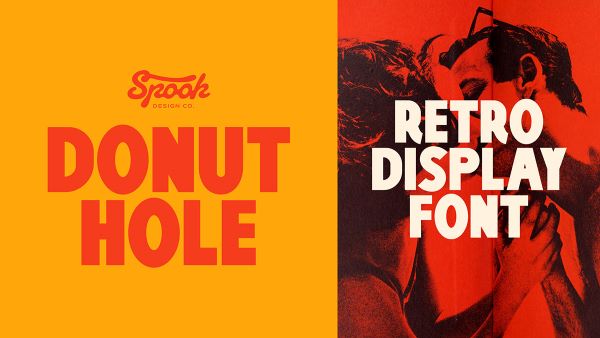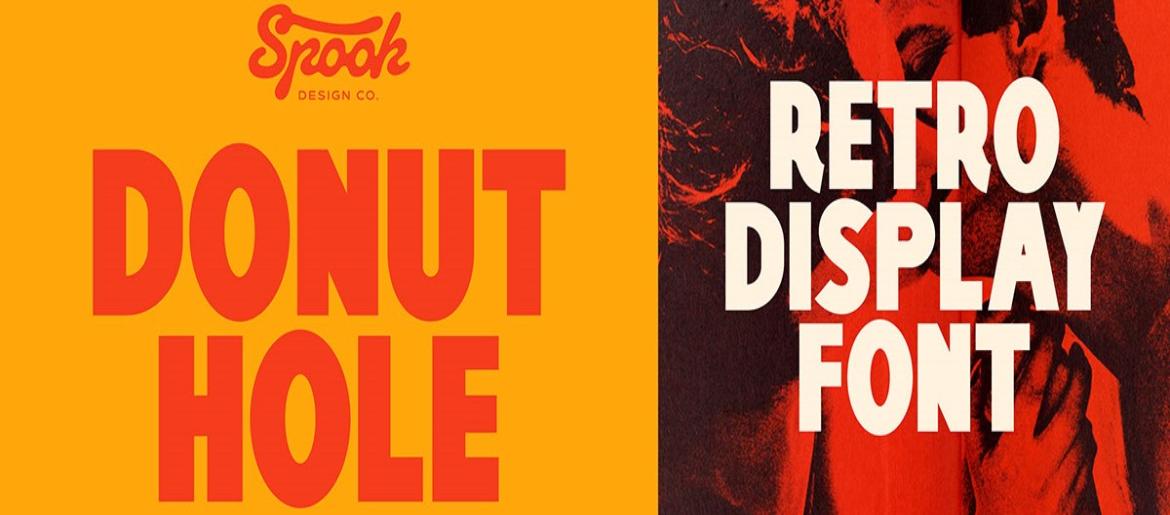
Donut Hole Font
Donut Hole by Casper Schutte is a retro display typeface inspired by the hand-painted signage of old-school cafés — warm, imperfect, and immediately likable. It leans into its own awkwardness with confidence, giving any project a quirky, nostalgic character that feels both vintage and fresh. Whether used for food and beverage branding, event graphics, social content, or any design that benefits from a touch of playful handmade personality, Donut Hole brings a naughty charm that’s hard to replicate with conventional type choices. Free for personal use, licensed under CC BY-ND 4.0.